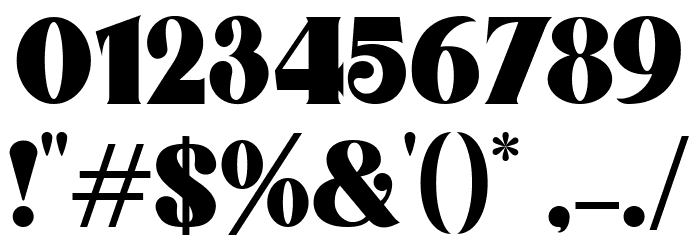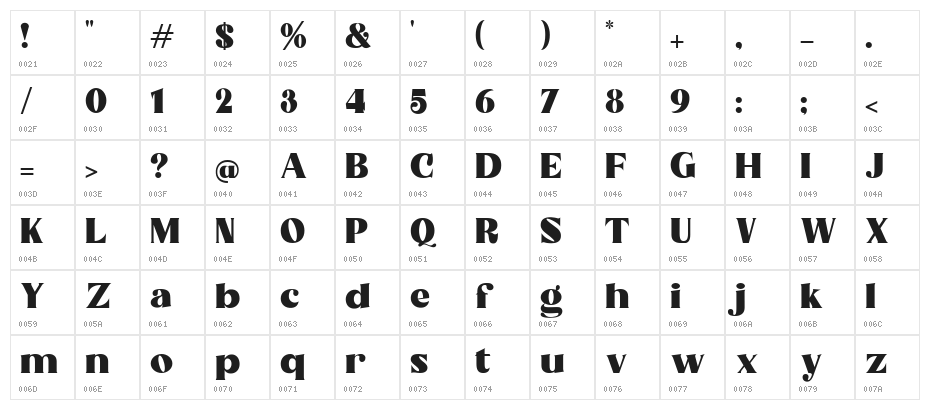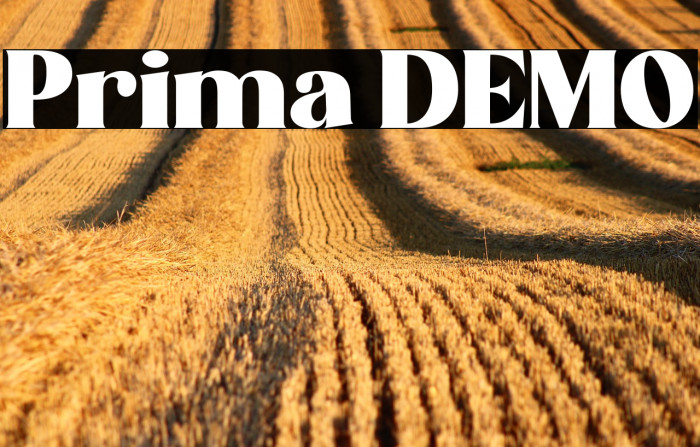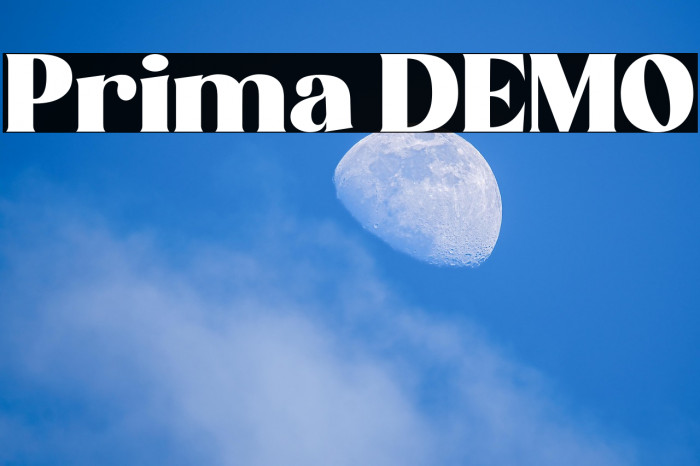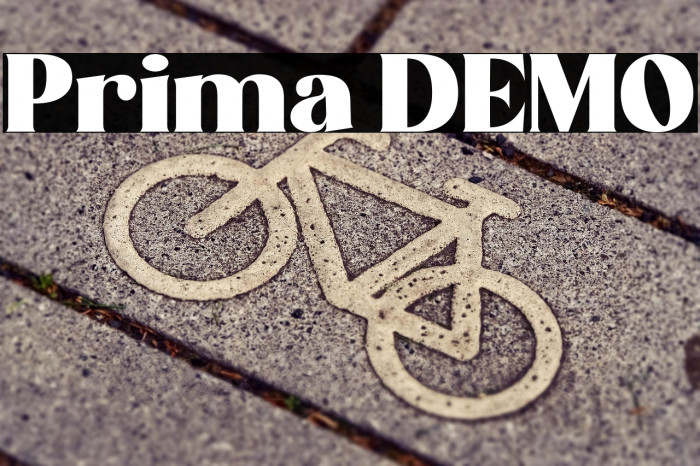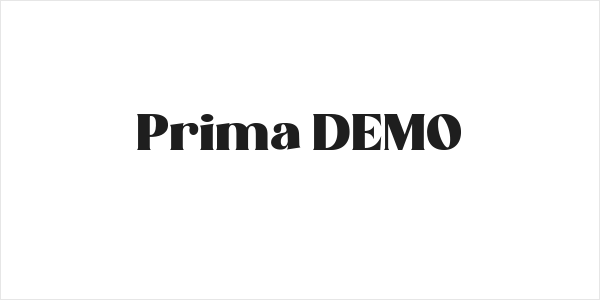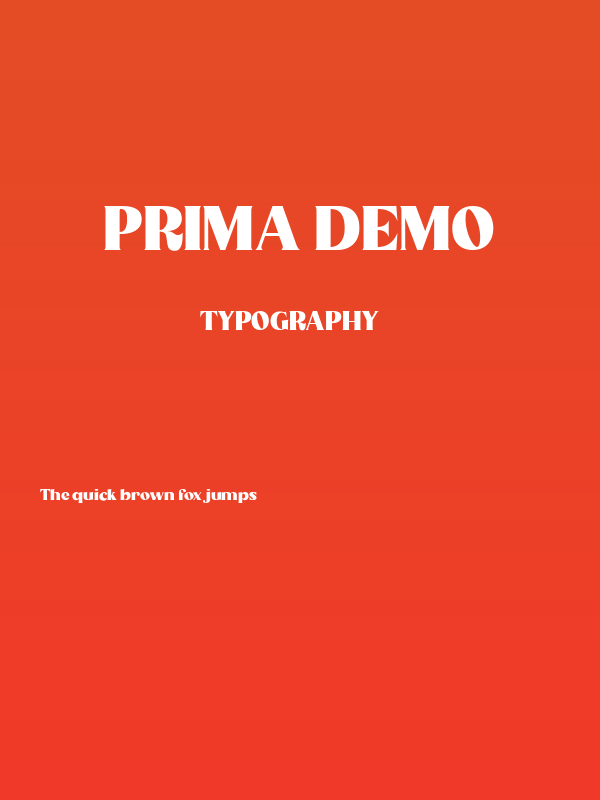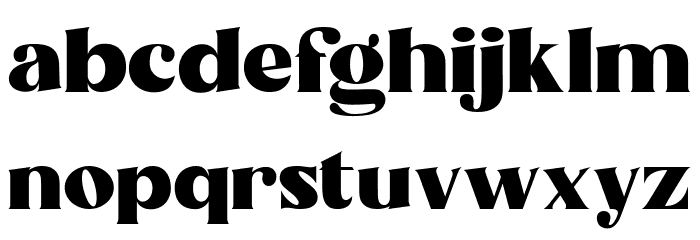
Prima DEMO Font
Prima DEMO Description
This font features a bold and dramatic style with high contrast between thick and thin strokes, giving it a striking and impactful appearance. The uppercase letters are particularly wide and commanding, while the lowercase letters maintain a consistent boldness, creating a cohesive look. The numerals are equally bold, ensuring readability and emphasis. Special characters are designed with the same bold strokes, making them stand out. This font's overall design is both modern and classic, suitable for making a strong visual statement.